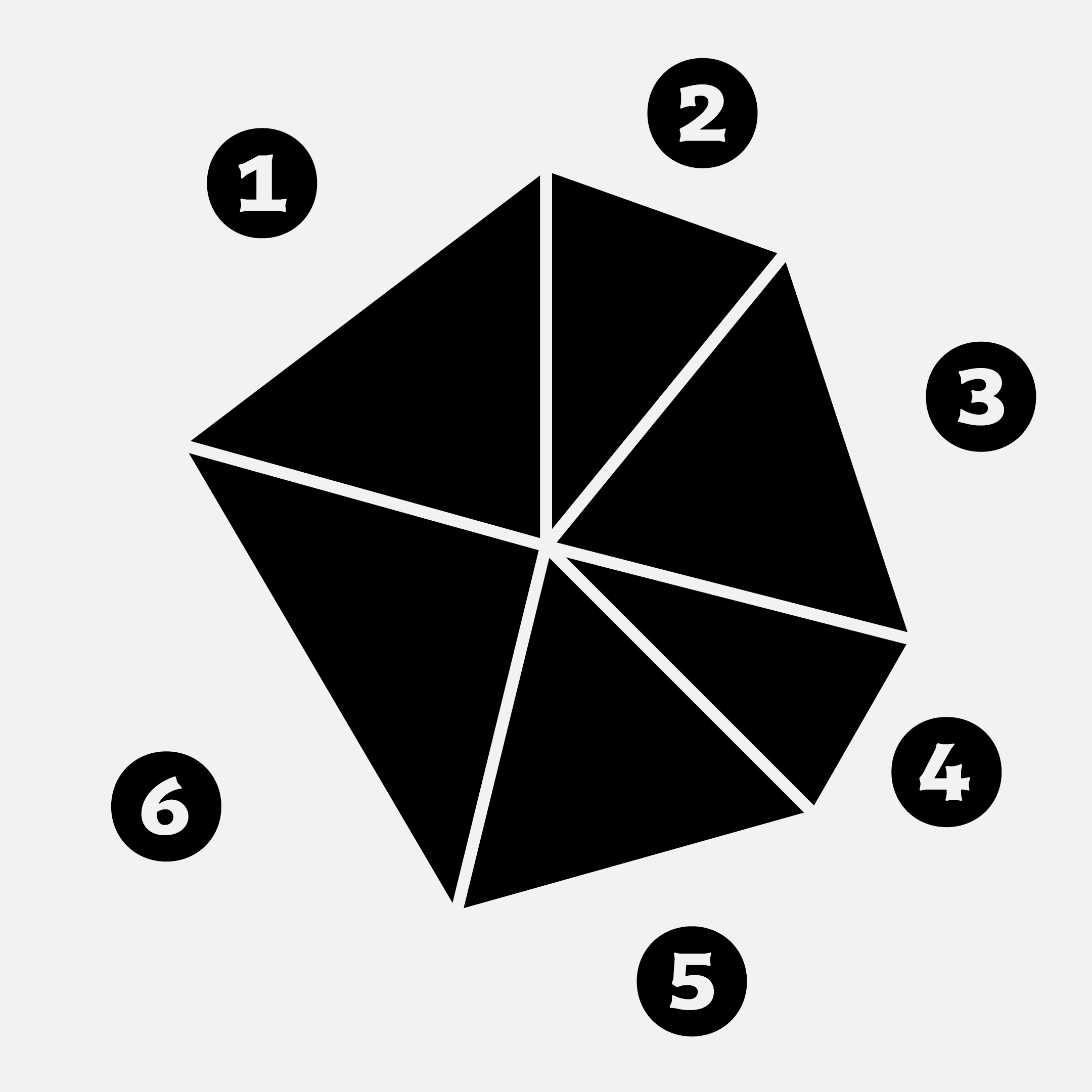
Tabac Micro
While display styles allow room for imagination and elegance in shaping delicate serifs or refined letterforms full of sophisticated details, styles designed for footnotes and other small texts proceed in exactly the opposite way — pragmatically and rationally, with an understanding of the optical properties of small type.
The development of Tabac Micro followed the principles that guide microtypography — a methodology focused on achieving good readability in small text. This primarily includes an increased x-height, which optically enlarges the appearance of the typeset text, looser letterspacing, and significantly emphasized punctuation that remains visible even in tiny nonpareil sizes. To prevent the setting from becoming spatially inefficient due to increased spacing and wider gaps, the overall measure is compensated by slightly narrowing the width of all letterforms.
A distinctive feature of this typeface is its consistent use of ink traps. Thanks to this, the type in footnotes does not spread into an amorphous typographic mass; on the contrary, the setting remains sharp and clear. This characteristic morphology, which often invites use in display sizes, disappears completely when reduced and begins to serve its intended purpose. The open humanist construction, which allows sufficient light to enter the letterforms, is likewise directly suited to maintaining readability under demanding conditions.
This typeface completes the mosaic of the Tabac superfamily type system.
• Design: Tomáš Brousil